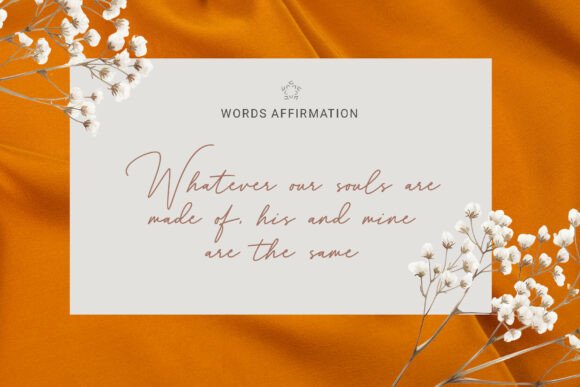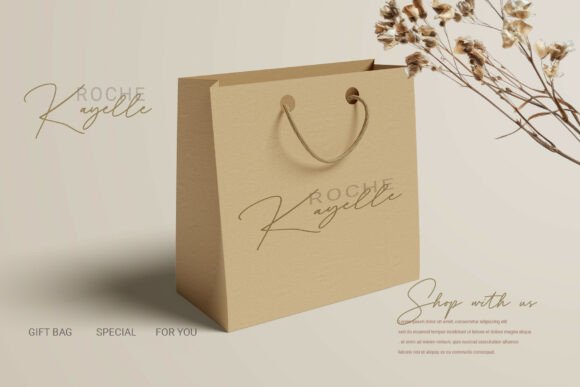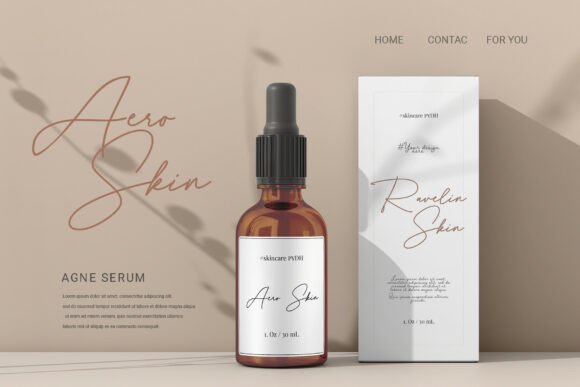
The Elusive Perfect Font: A Designer’s Quest
I’ll never forget the countless hours I spent searching for the perfect font for a client’s high-end boutique logo. The brief was simple: elegant, sophisticated, and unique. But, as we all know, finding that one font can be like searching for a needle in a haystack. That’s when I stumbled upon Delyra Script, a modern signature font that would change the game.
First Impressions: A Love Affair with Delyra Script
Delyra Script is more than just a font – it’s a statement piece. Characterized by its fluid, hand-drawn strokes and organic rhythm, this typeface captures the essence of a personal handwritten signature. With its sweeping loops and elegant terminals, Delyra is the definitive choice for high-end boutique logos, wedding stationery, sophisticated social media branding, and professional watermarks.
An Honest Review: The Good, the Bad, and the Quirky
- ✨ Effortless elegance: Delyra Script exudes sophistication and refinement.
- ✅ Highly versatile: perfect for logos, branding, and marketing materials.
- 💫 Unique character: its fluid strokes and organic rhythm set it apart from other script fonts.
While Delyra Script is an exceptional font, there are a few things to keep in mind:
- ⚠️ Limited use in body text: due to its elegant, cursive nature, Delyra Script is best suited for headlines and titles.
- 🤔 Occasional kerning issues: as with any font, some manual kerning may be required for optimal results.
The Designer Inspiration Behind Delyra Script
While the true story behind Delyra Script’s creation remains a mystery, it’s easy to imagine the design process. Perhaps the designer, fueled by a passion for elegant typography, set out to create a font that would capture the essence of a personal handwritten signature. With Delyra Script, they’ve succeeded in crafting a typeface that’s both refined and distinctive.
Q: What makes Delyra Script unique?
A: Delyra Script’s fluid, hand-drawn strokes and organic rhythm set it apart from other script fonts.
Q: Can I use Delyra Script for body text?
A: While Delyra Script is an exceptional font, it’s best suited for headlines and titles due to its elegant, cursive nature.
Q: Does Delyra Script support OpenType features?
A: Yes, Delyra Script supports OpenType features, including glyphs and stylistic alternates.
| Font Name | Delyra Script Font |
| Author | RHD Creative Studio |